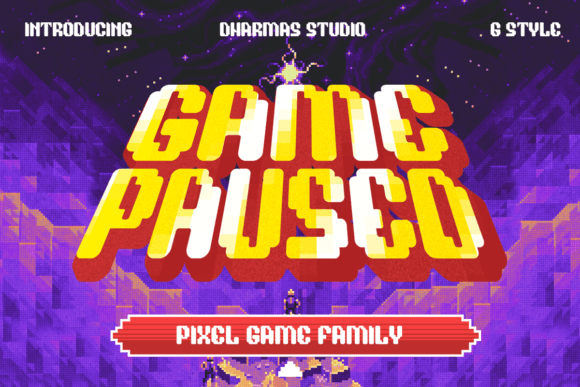
Introducing the GAME PAUSED Font Collection: A Retro Nostalgia for the Modern Designer
The world of design is constantly evolving, with new trends and styles emerging every day. However, there’s something about retro nostalgia that never fades away. The iconic style of the 00s, with its pixel art, Game Boys, and cartoons, continues to inspire designers and artists to this day. If you’re one of them, you’re in luck! We’re excited to introduce the GAME PAUSED font collection, a playful tribute to the futuristic pixel game vibes of the past.
What is GAME PAUSED Font?
GAME PAUSED is a font collection that consists of 6 unique styles, each with its own distinct character. The collection includes:
- Regular
- Slant
- Outline
- Extrude
- Outline Slant
- Extrude Slant
These styles can be used individually or in combination to create a wide range of design possibilities. Whether you’re working on a pixel game venture or a graphic design project, GAME PAUSED is the perfect font to add a touch of retro nostalgia to your work.
Designing with GAME PAUSED Font
One of the best things about GAME PAUSED is its versatility. The font can be used in a variety of design projects, from pixel art and game development to graphic design and branding. The font’s futuristic pixel game vibes make it perfect for creating designs that are both nostalgic and modern.
Here are a few design ideas to get you started:
- Create a pixel art game with a retro feel
- Design a logo or branding materials for a game development company
- Make a graphic design project, such as a poster or flyer, with a nostalgic twist
- Use the font in a web design project to add a touch of retro flair
Design Tips and Tricks
To get the most out of GAME PAUSED, here are a few design tips and tricks to keep in mind:
- Experiment with different font styles and combinations to create a unique look
- Use the font in conjunction with other design elements, such as pixel art or graphics, to create a cohesive design
- Don’t be afraid to get creative and try new things – the font is designed to be playful and fun!
Benefits of Using GAME PAUSED Font
So why choose GAME PAUSED over other fonts? Here are just a few benefits of using this unique font collection:
- Retro nostalgia: GAME PAUSED is a playful tribute to the iconic style of the 00s, making it perfect for designers who want to add a touch of nostalgia to their work
- Versatility: The font collection includes 6 unique styles, making it versatile enough to use in a wide range of design projects
- Futuristic pixel game vibes: GAME PAUSED has a unique, futuristic feel that’s perfect for pixel game ventures and other design projects
In conclusion, GAME PAUSED is a unique and versatile font collection that’s perfect for designers who want to add a touch of retro nostalgia to their work. With its 6 unique styles and futuristic pixel game vibes, this font is sure to inspire creativity and bring back cherished memories of the 00s. So why wait? Download GAME PAUSED today and start designing with a nostalgic twist!